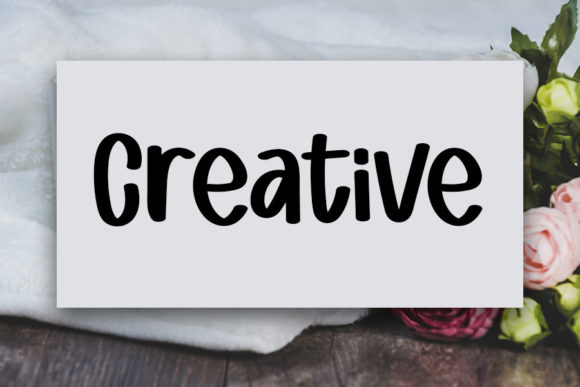
About Cute and Active Font
Cute And Active is a bold and elegant handwritten font. Its distinct and well rounded letters make this font a masterpiece. Fall in love with its incredibly versatile style and use it to create spectacular designs!